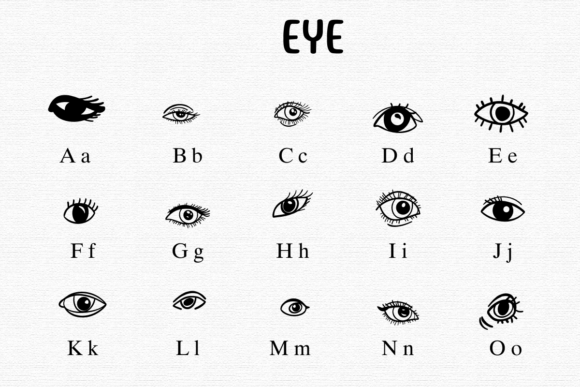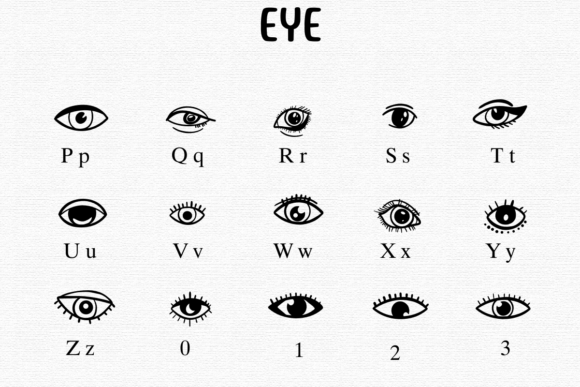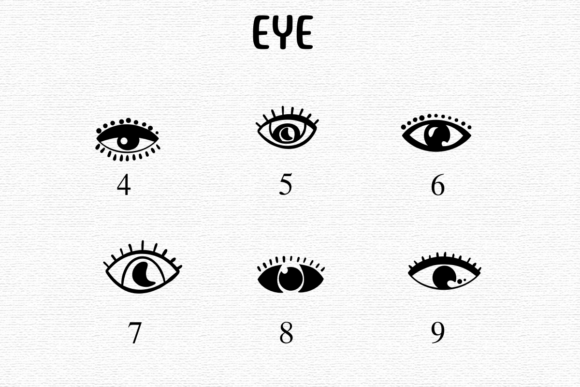
Eye Font
Eye is a quirky and expressive dingbats font featuring dozens of unique eye illustrations—from minimalistic lashes to detailed pupils and stylized stares. Ideal for design themes like vision, mysticism, self-expression, and fashion branding.